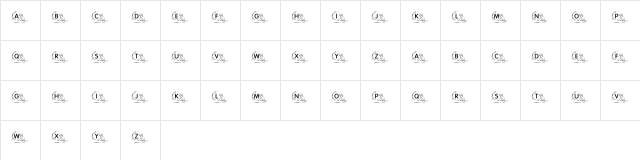
KR Uphill Battle Regular
Design Context for KR Uphill Battle Typeface
KR Uphill Battle is a composed and adaptable typeface that performs quietly and consistently across a wide range of design contexts.